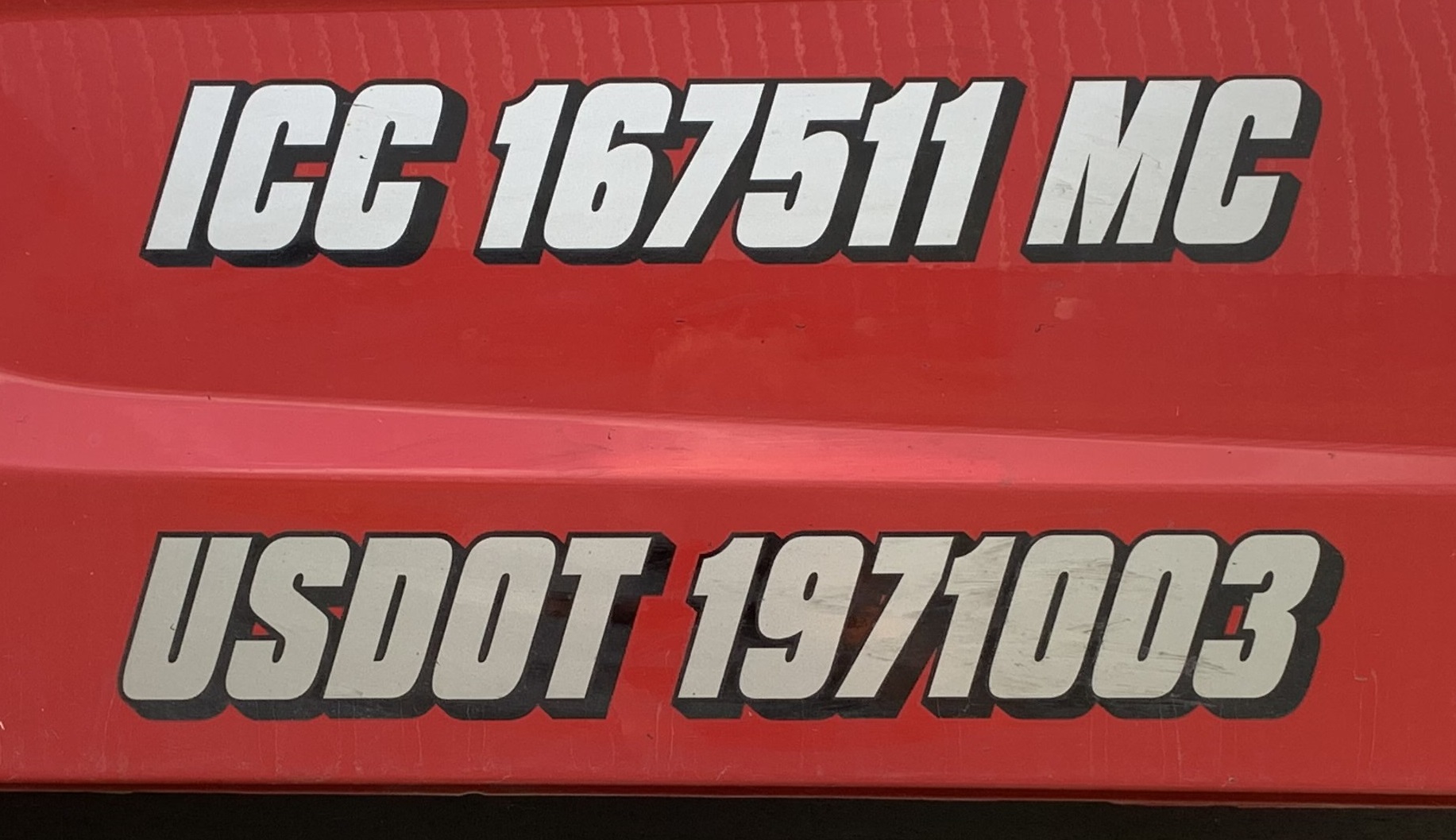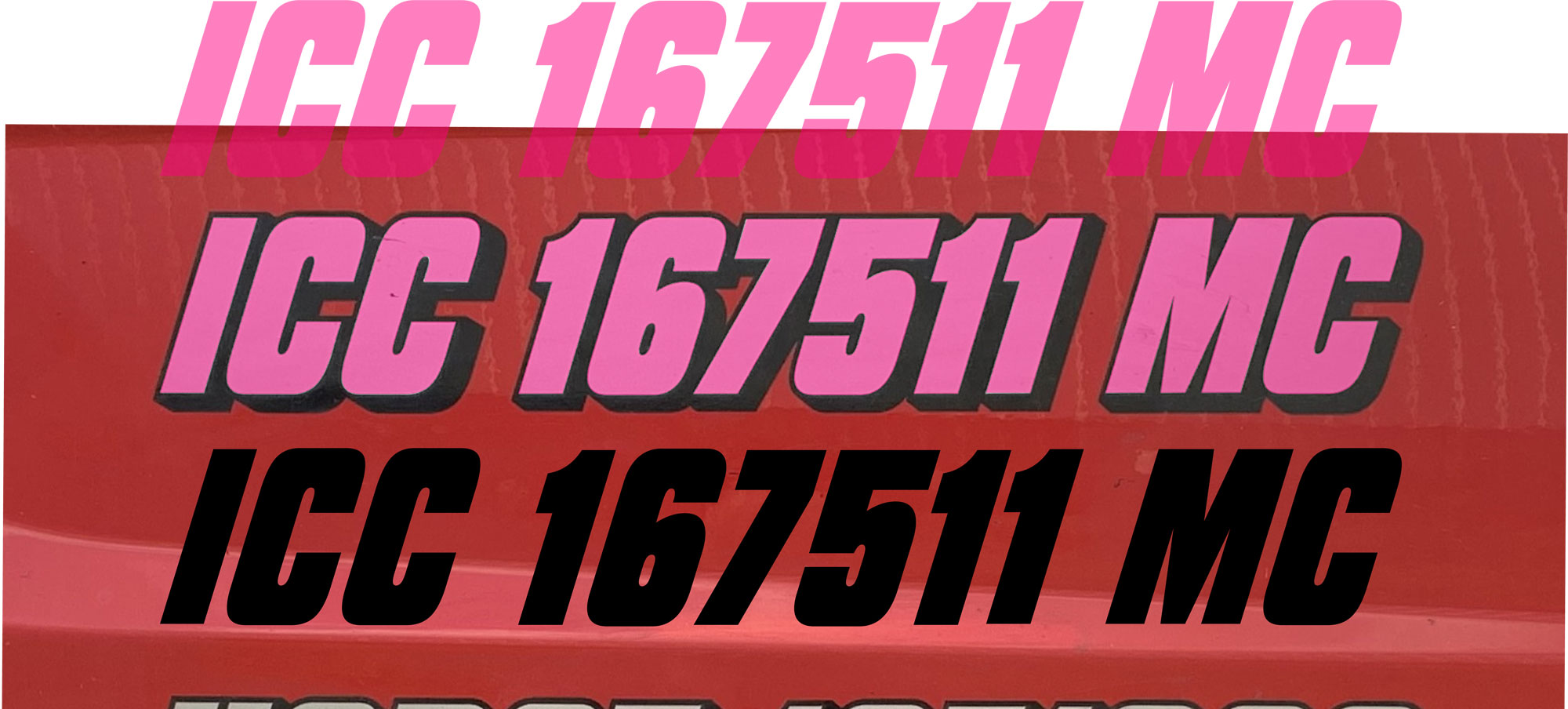
Another font ID...
Anyone got any ideas?
With all due respect Tiki, I contend that it's Compacta Black from Bitstream with width compression to 64% and 24 degree slant.